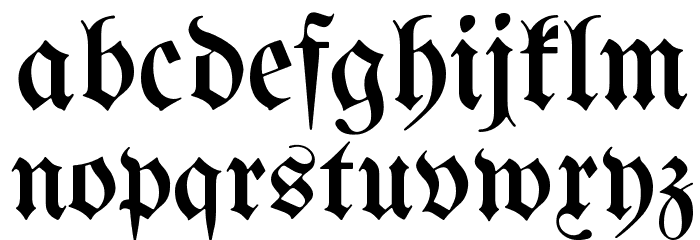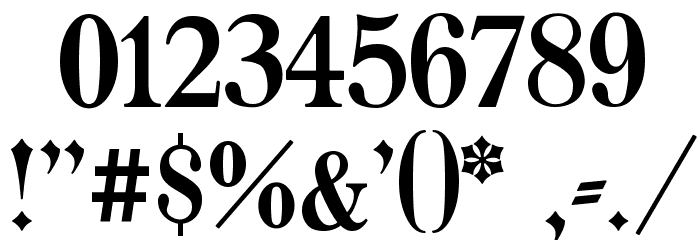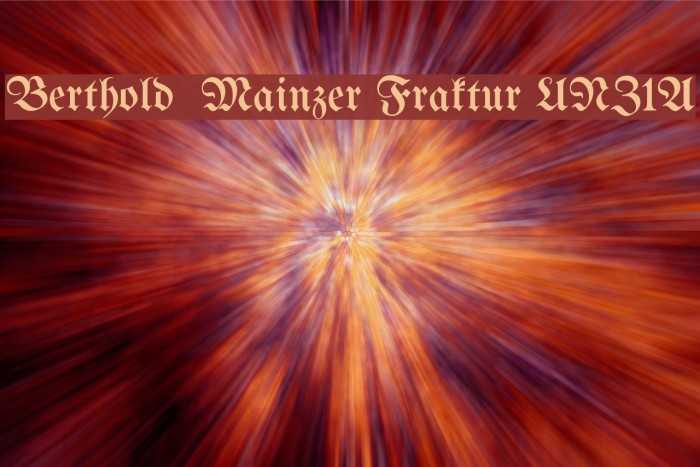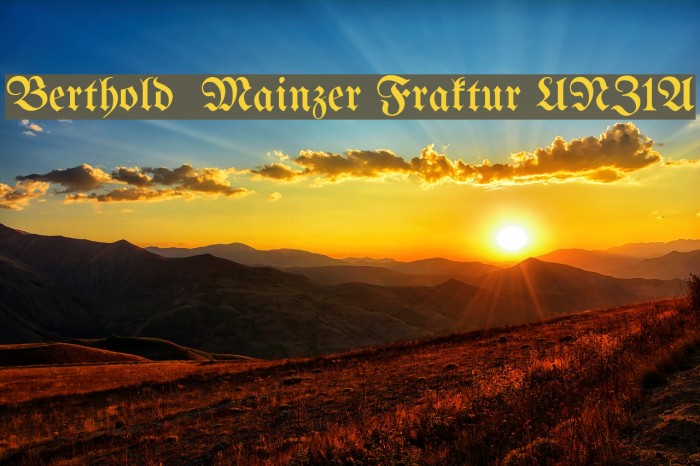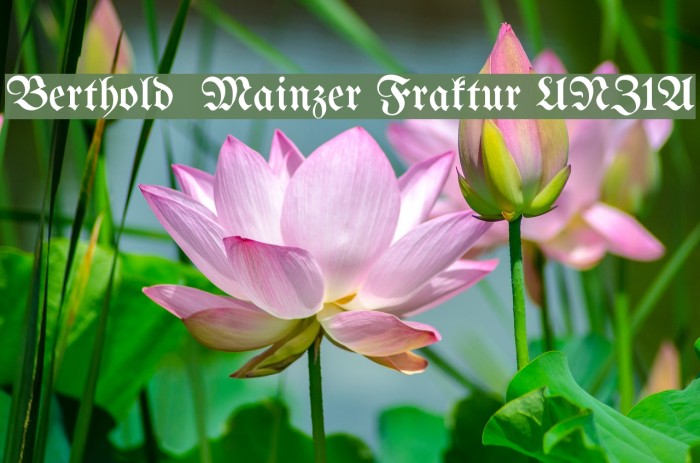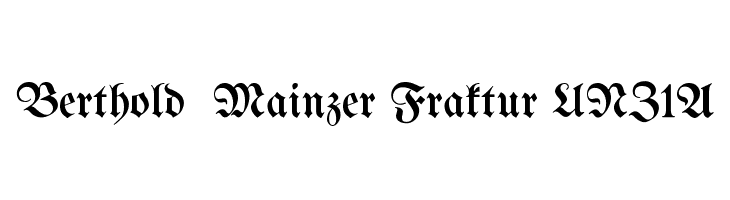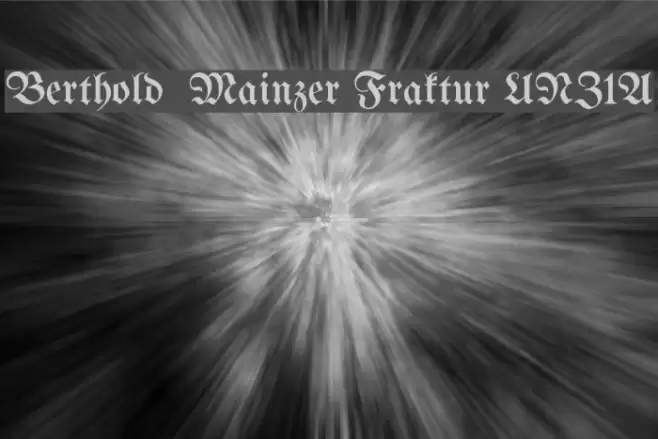
Berthold Mainzer Fraktur UNZ1A Font
This font embodies a traditional and ornate style, reminiscent of historical script with its intricate and decorative elements. The characters are bold and feature sharp, angular lines that create a sense of formality and elegance. The uppercase letters are particularly elaborate, with flourishes and embellishments that give them a distinctive appearance. The lowercase letters maintain a consistent style, with a slightly more subdued design that complements the uppercase. Numbers and special characters are crafted with the same attention to detail, ensuring a cohesive look across all elements. The overall impression is one of sophistication and classic beauty, making it suitable for projects that require a touch of historical or formal flair.
An ornate and traditional font with intricate, angular characters.
- Proposed Projects: Ideal for historical documents, wedding invitations, certificates, and branding that requires a classic touch.
- Overall Style: Classic
- Use Case: Headlines, Logos, Decorative text